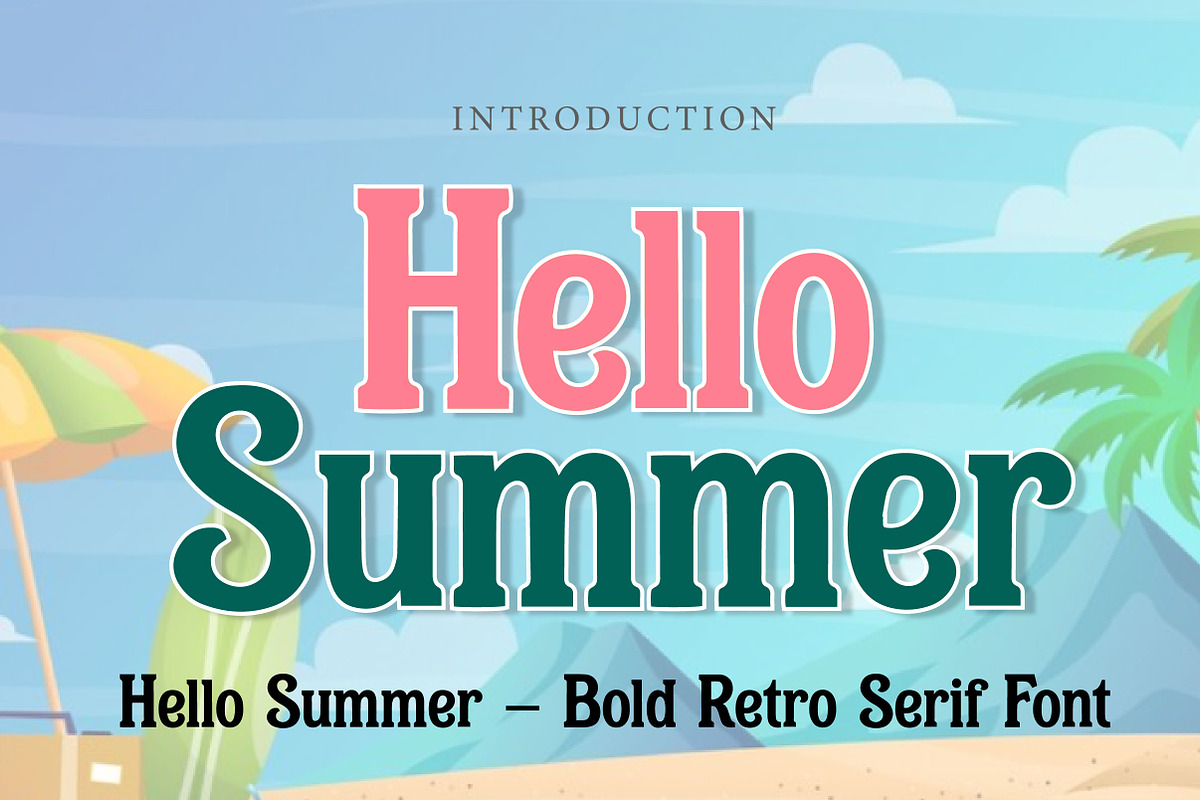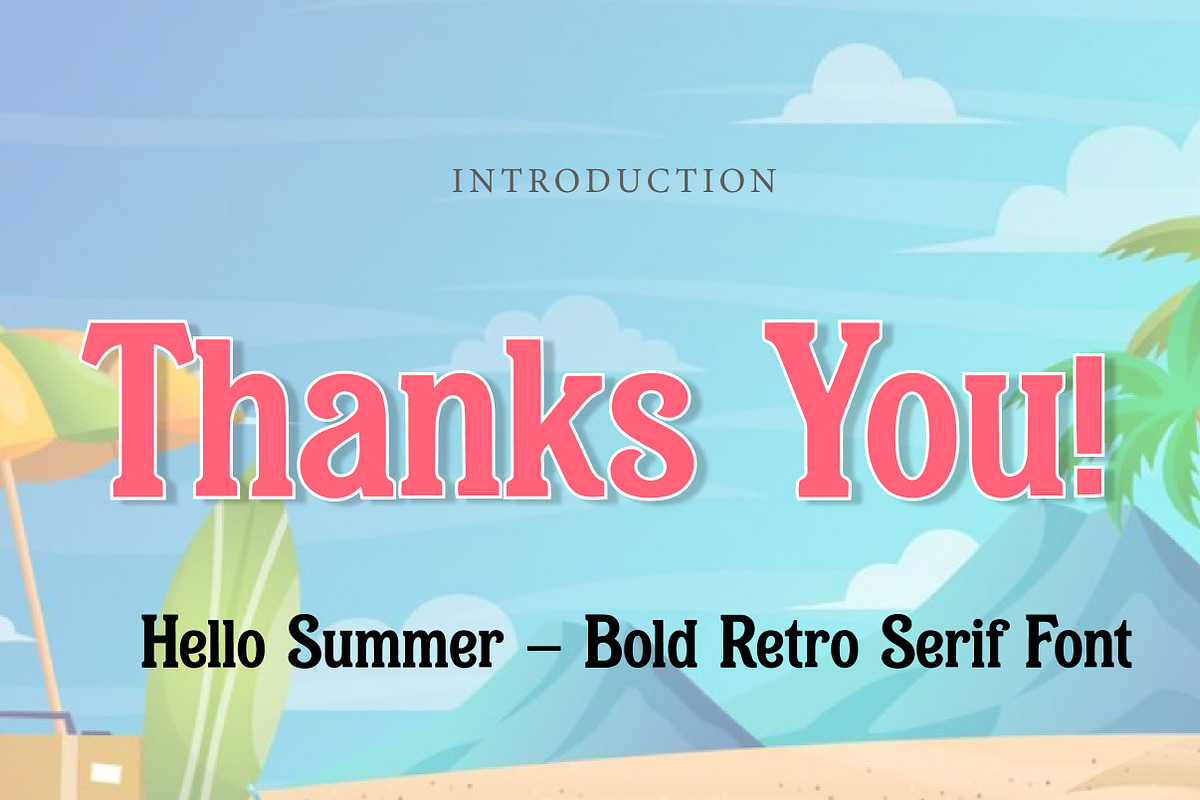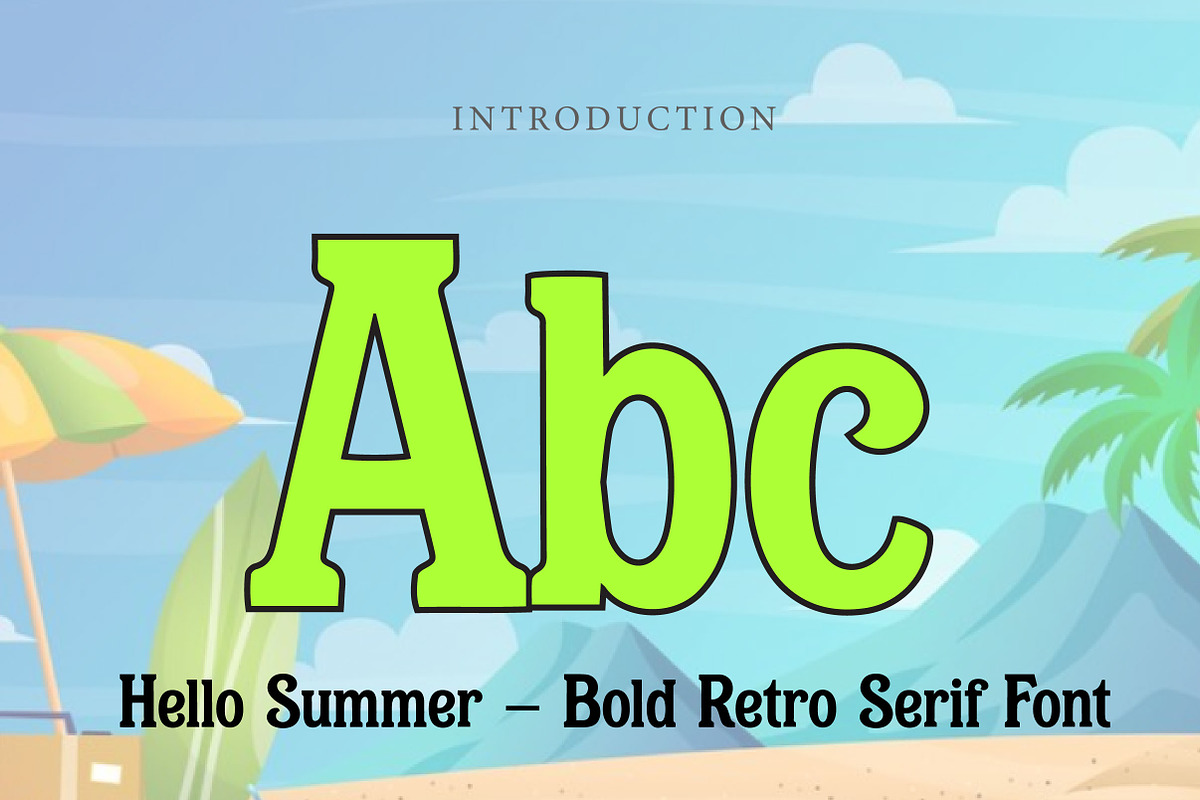
Hello Summer
Hello Summer – Bold Retro Serif Font
Hello Summer is a bold, cheerful, and stylish serif font with a retro-inspired look, perfect for summer branding, posters, packaging, invitations, and vibrant creative projects.
Hello Summer is a bold and eye-catching serif font designed to bring warmth, fun, and personality into your designs. With its strong letterforms, rounded serif details, and vintage-inspired character, this font creates a lively and memorable look that feels both playful and classic.
Its bold retro style makes Hello Summer perfect for seasonal and creative projects that need a bright and energetic touch. Whether you are designing summer event posters, product packaging, branding, social media graphics, invitations, merchandise, or headline typography, this font helps your text stand out with charm and confidence.
The solid structure keeps your typography clear and impactful, while the retro serif personality adds extra style and uniqueness. Suitable for both print and digital use, Hello Summer is a great choice for designers who want a font that feels fun, bold, and full of sunshine.
Perfect For Summer branding Posters and headlines Event invitations Product packaging Social media graphics Merchandise and apparel Travel and holiday designs Stickers and labels Retro logo concepts Seasonal typography projects Font Features Uppercase letters Lowercase letters Numbers & punctuation Bold retro serif style Strong and cheerful character Clean and readable shapes Perfect for display use